There’s a certain thrill that comes with circus fonts—an energy that feels larger than life. As a graphic designer with a soft spot for the spectacle of the big top, I’ve always been drawn to the drama, nostalgia, and sheer fun packed into every letter.
These fonts don’t whisper—they announce. Circus typefaces command attention like a ringmaster under the spotlight, conjuring images of acrobats soaring through the air, popcorn in hand, and the buzz of a crowd waiting for the next big act. They’re bold, theatrical, and impossible to ignore.
Whether you’re crafting carnival posters, branding a whimsical venue, or just looking to bring a dash of vintage showbiz to your designs, circus fonts deliver pure visual entertainment. They instantly transform the ordinary into something spectacular.
In this guide, we’ll explore the fonts that capture the magic of the midway—from classic vintage styles to fresh takes that still echo with carnival charm. So step right up, grab a front-row seat, and let’s dive into the dazzling world of circus typography!
The Most Show-Stopping Circus Fonts of 2026
Not all circus fonts are created equal – some truly steal the show while others fall flat. I’ve curated a collection of the most spectacular circus fonts that’ll make your designs the main attraction:
Greatest Circus
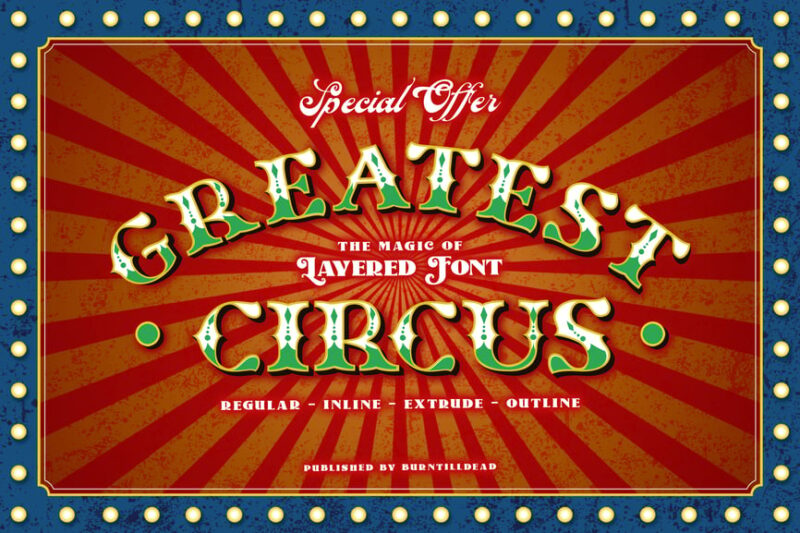
Greatest Circus is a bold, decorative serif font that captures the essence of vintage circus aesthetics. Its exaggerated curves and playful letterforms make it perfect for eye-catching headlines and poster designs in carnival-themed projects.
The Circus Font
The Circus Font is a whimsical, decorative typeface that embodies the spirit of entertainment and showmanship. Its elaborate design features ornate details and playful shapes, ideal for creating captivating circus-inspired graphics and branding materials.
The Circus Show
The Circus Show is a bold, attention-grabbing display font that exudes carnival charm. Its strong serifs and dramatic contrasts make it an excellent choice for large-scale designs, posters, and headers in circus-themed projects.
Carnivale Font
Carnivale Font is a retro-inspired decorative typeface that captures the excitement of vintage circus aesthetics. Its playful letterforms and nostalgic feel make it perfect for creating eye-catching designs for carnival events, posters, and themed branding.
Circus
Circus is a vintage-style decorative serif font that embodies the classic charm of old-school circuses. Its bold characters and ornate details make it ideal for creating nostalgic designs, posters, and headlines with a touch of whimsy and showmanship.
Peronas Font
Peronas Font is a decorative typeface that combines classic elegance with carnival flair. Its unique letterforms and balanced design make it versatile for various applications, from vintage-inspired branding to modern interpretations of carnival aesthetics.
Circus Ace
Circus Ace is a modern, elegant blackletter font that brings a touch of sophistication to circus-themed designs. Its refined letterforms and retro influence make it ideal for creating high-end branding materials and luxurious circus-inspired graphics.
Dehors
Dehors is a western-inspired display serif typeface that evokes the wild spirit of the frontier. Its rugged design and bold characters make it perfect for creating eye-catching headlines and logos for western-themed events, rodeos, and rustic branding projects.
Fun Show
Fun Show is an amazing layered display font that brings excitement and energy to designs. Its versatile family of styles allows for creative combinations, making it ideal for branding projects, posters, and other graphics that require a bold, playful presence.
Boggle Royale
Boggle Royale is a decorative serif font that combines vintage circus aesthetics with a touch of royalty. Its ornate design and elegant details make it perfect for creating sophisticated circus-themed branding, invitations, and high-end event materials.
Jester Jumble
Jester Jumble is a fun, clown-inspired decorative font that brings a playful spirit to designs. Its whimsical letterforms and jovial character make it ideal for children’s party invitations, circus promotional materials, and other lighthearted graphic projects.
Circusia Vintage Display Font
Circusia is a vintage-inspired display font that captures the essence of classic circus lettering. Its bold, decorative design and carefully crafted letterforms make it perfect for creating authentic-looking circus posters, headlines, and themed branding materials.
So step right up, choose your favorite circus font, and get ready to create designs that’ll have your audience giving you a standing ovation!